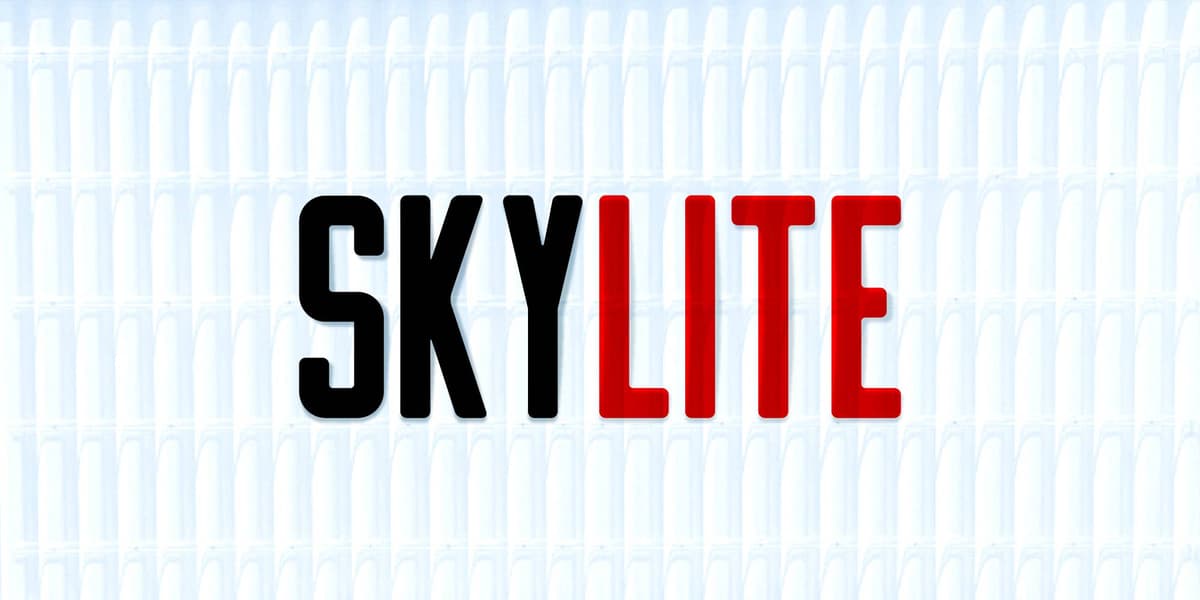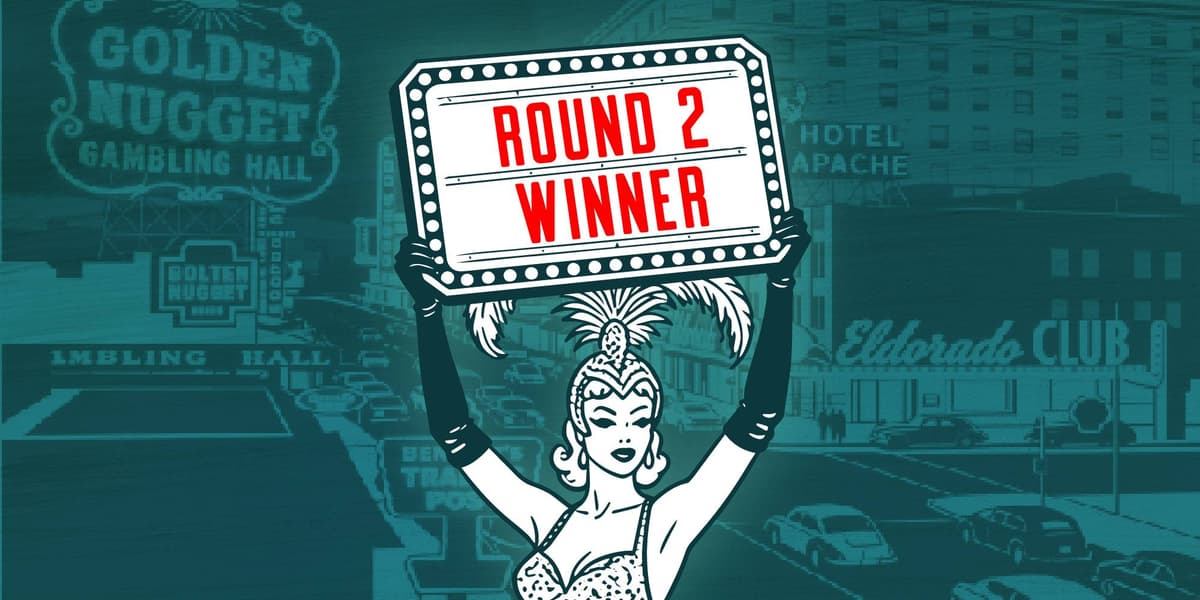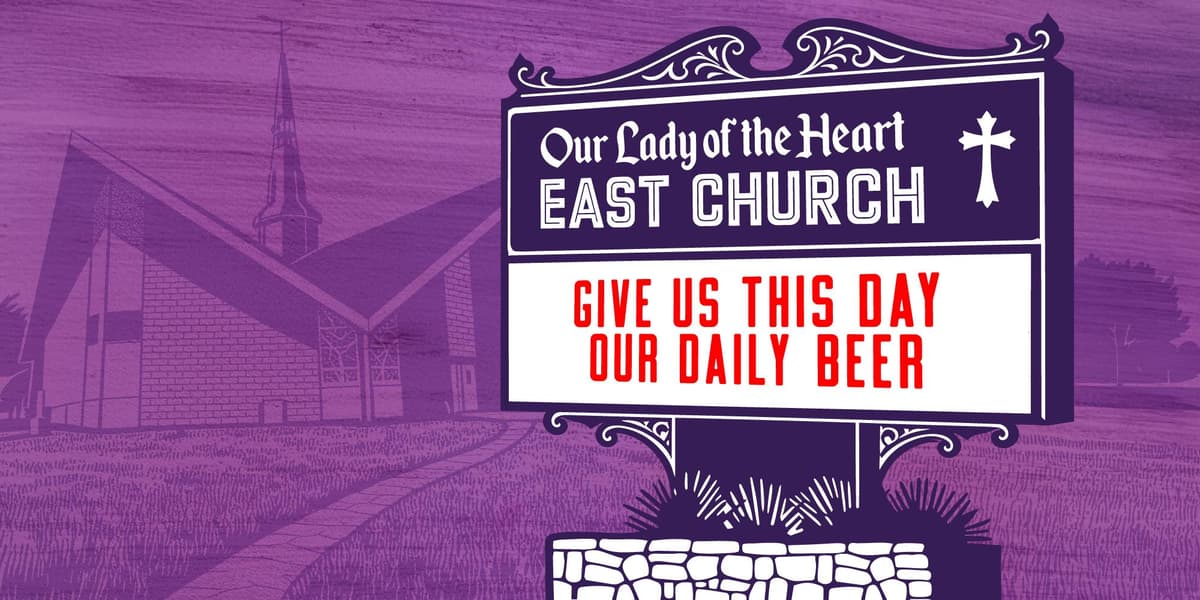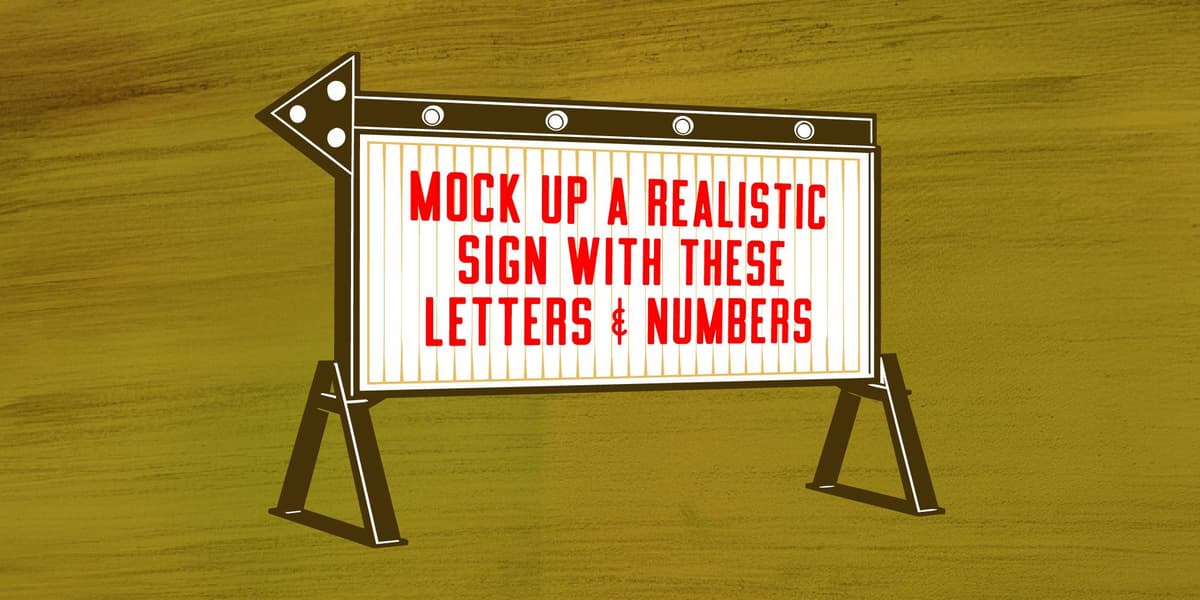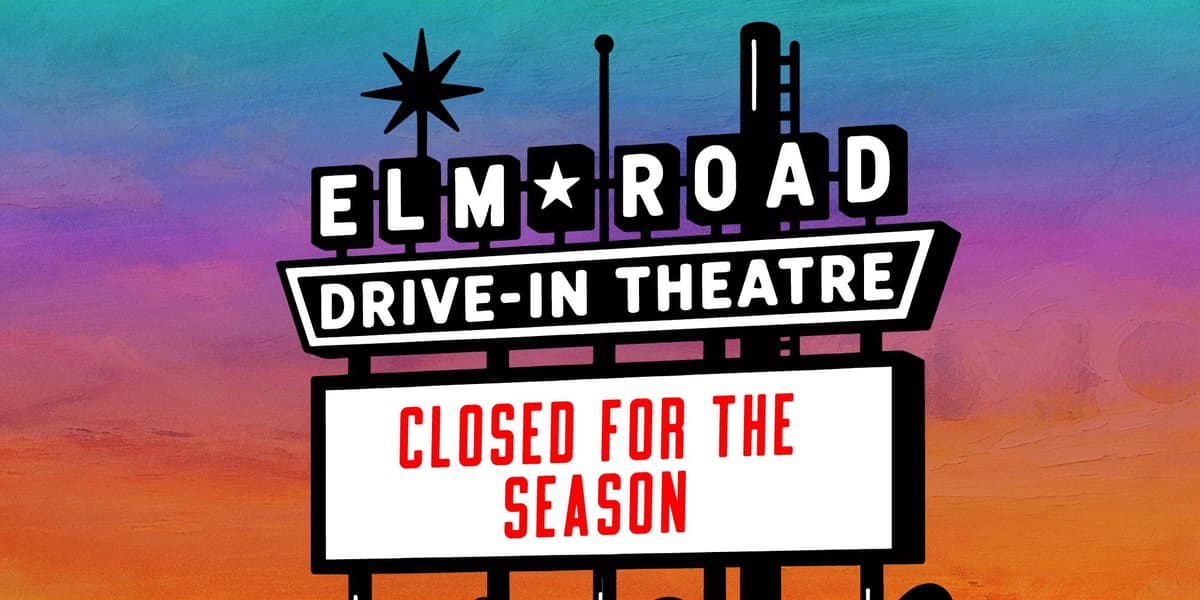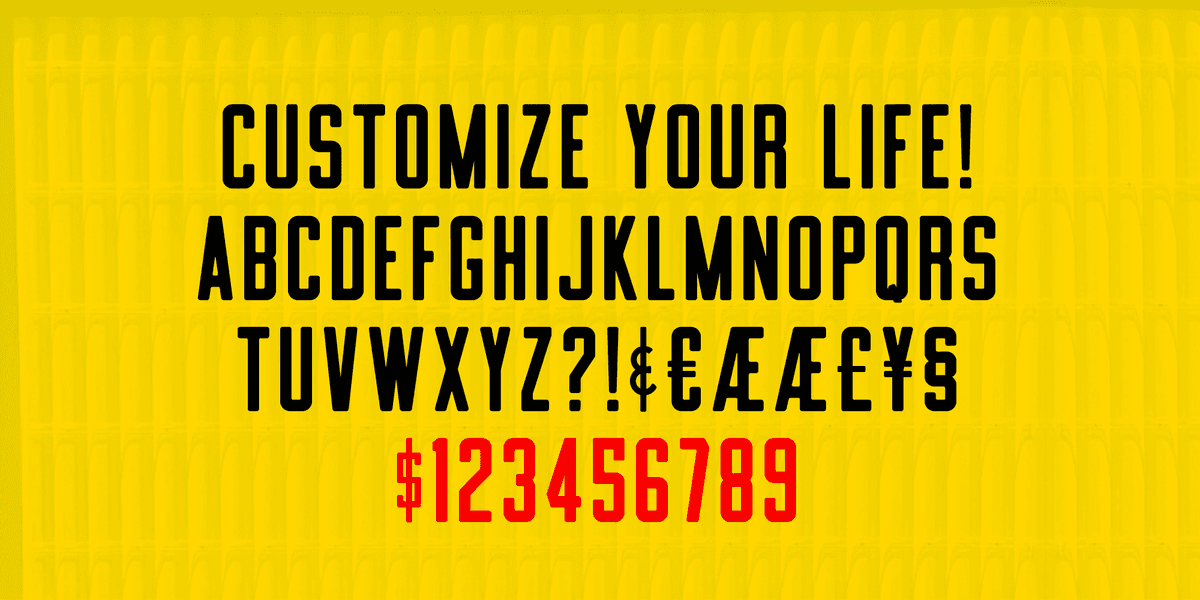
If you've always dreamed of having the font they use on those plastic letters on marquees, well look no further! Somebody finally went ahead and make a full font with all the euro characters and a bunch of those other random ones nobody really uses, like the paragraph glyph.